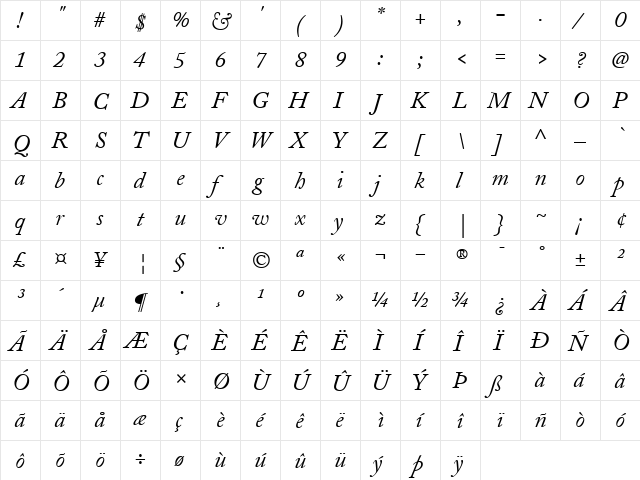
tsp machina 1 Italic
Design Context for tsp machina 1 Typeface
tsp machina 1 offers clean, dependable letterforms without strong stylistic allegiance, making it a practical choice for designers who need flexibility. Its italic angle brings a sense of urgency and motion to the letterforms.